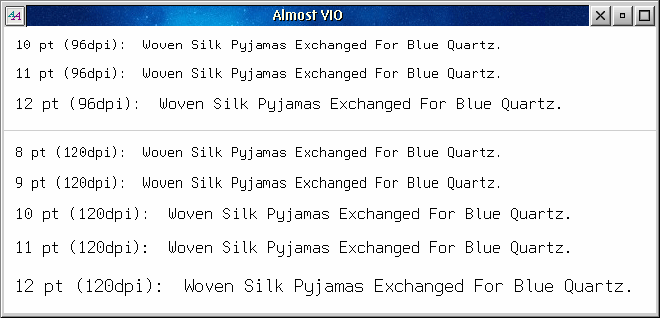
Subject : WANTED - unicode sans font with differentiated Il1| & O0
I've been trying to find a simple sans serif font for a specialist mathematical programming language that uses special symbols (available in unicode fonts). Some unicode fonts have inconsistent symbols sizes eg Tahoma and Verdana, DejaVu sans has advanced logic symbols (the round ones) that are consistent in size but larger than all the other symbols.
These fonts render some or all of vertical bar, capital I small L and digit 1 identically. This is unacceptable in a programming language where a single wrong character can cause a bug that is very difficult to trace (the program will look right). Capital O and zero also need to be obviously different.
There are fonts that deliberately differentiate between (some) these characters, eg MS Reference Sans Serif has different characters for lower case L, digit 1 and capital i, but unfortunately the lower case L is just a vertical line and easily mistaken for the vertical line character which is used in programming language.
If anyone knows of an ideal unicode sans font, please let me know.
Alternatively, a font designer might want to deliberately create a font that is perfect? Perhaps by combining two open source fonts and/or adapting an OpenSource font such as DejaVu Sans Unicode ? If anyone wants to create such a font, here are more details. For differentiation, the vertical bar should be the only character in the font that is represented as a pure vertical line. Lower case L should have a small bend to the right at the bottom of the stalk. Upper case i should have cross bars at top and bottom. Digit one should have a small angled bar at the top of the stalk on the left hand side. The zero character should be narrower than the letter O, but not have a dot or line though it (to avoid it resembling other symbols). The advanced logic symbols ●○◐◍◉◖◗ should be of similar size to each other and not be larger than other symbols in the font (but should be noticeably larger than the bullet and empty bullet symbols). The arrows ↑↓→←↕↔↖↙↘↗ should be of similar weight. The Lucida range of symbols is almost ideal already, and they look nice, but are not open source. All the other unicode fonts I have seen have arrows of different weights (looks bad) or logic circles that are different sizes (or all large and out of scale to all the other symbols in the font).
Have you looked at Inconsolata?
Are you looking for a monospaced or proportional font?
A few years ago I did this bitmap font (text samples) which I use as my primary programming/editor font. It's loosely based on one of IBM's old OS/2 system fonts for use in command prompt/terminal windows. It's in an OS/2 specific bitmap format, and not Unicode, so it doesn't help you very much, but is the general design something like what you're looking for?
By the way, have you looked at Adobe Source Code Pro?